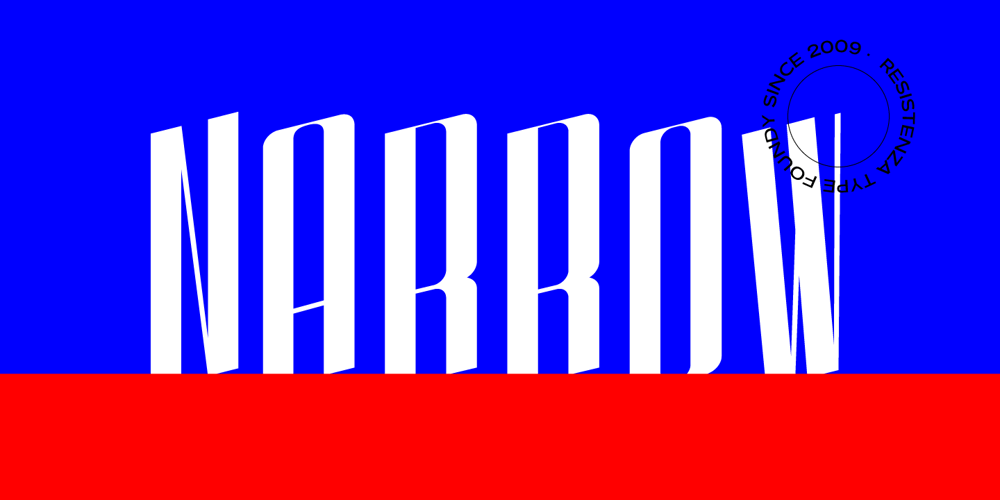
Babushka
Babushka font
Babushka Font Family was designed by published by Resistenza. Babushka contains 1 styles and family package options. This font, is dedicated to all the Russian and non-Russian Babushkas around the world. This font was created using a flat brush and Chinese ink. After that I scanned all the letters and numbers and created the real font. Designed by Giuseppe Salerno, in the 2011. You can even watch a video on YouTube showing how Babushka was hand-drawn by the artist.